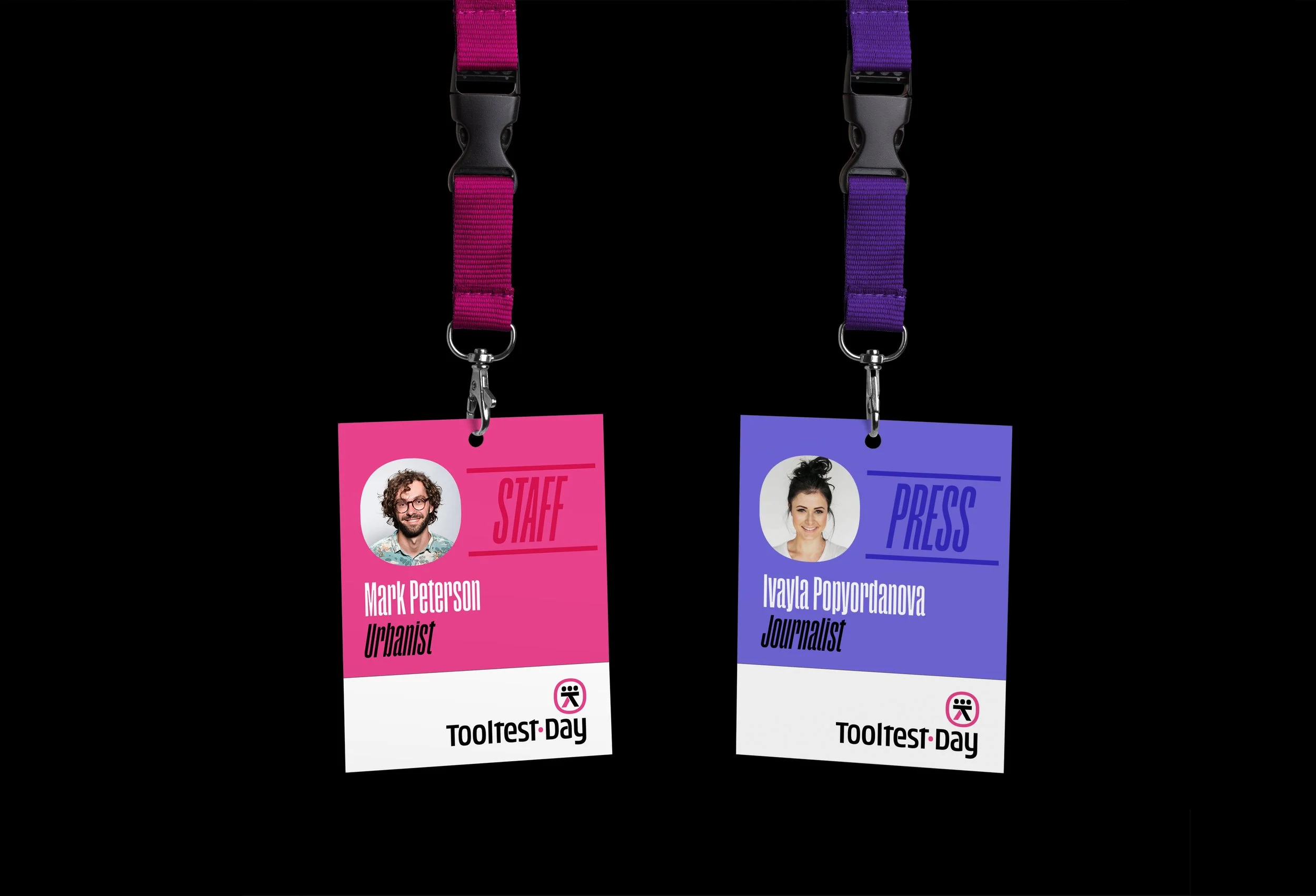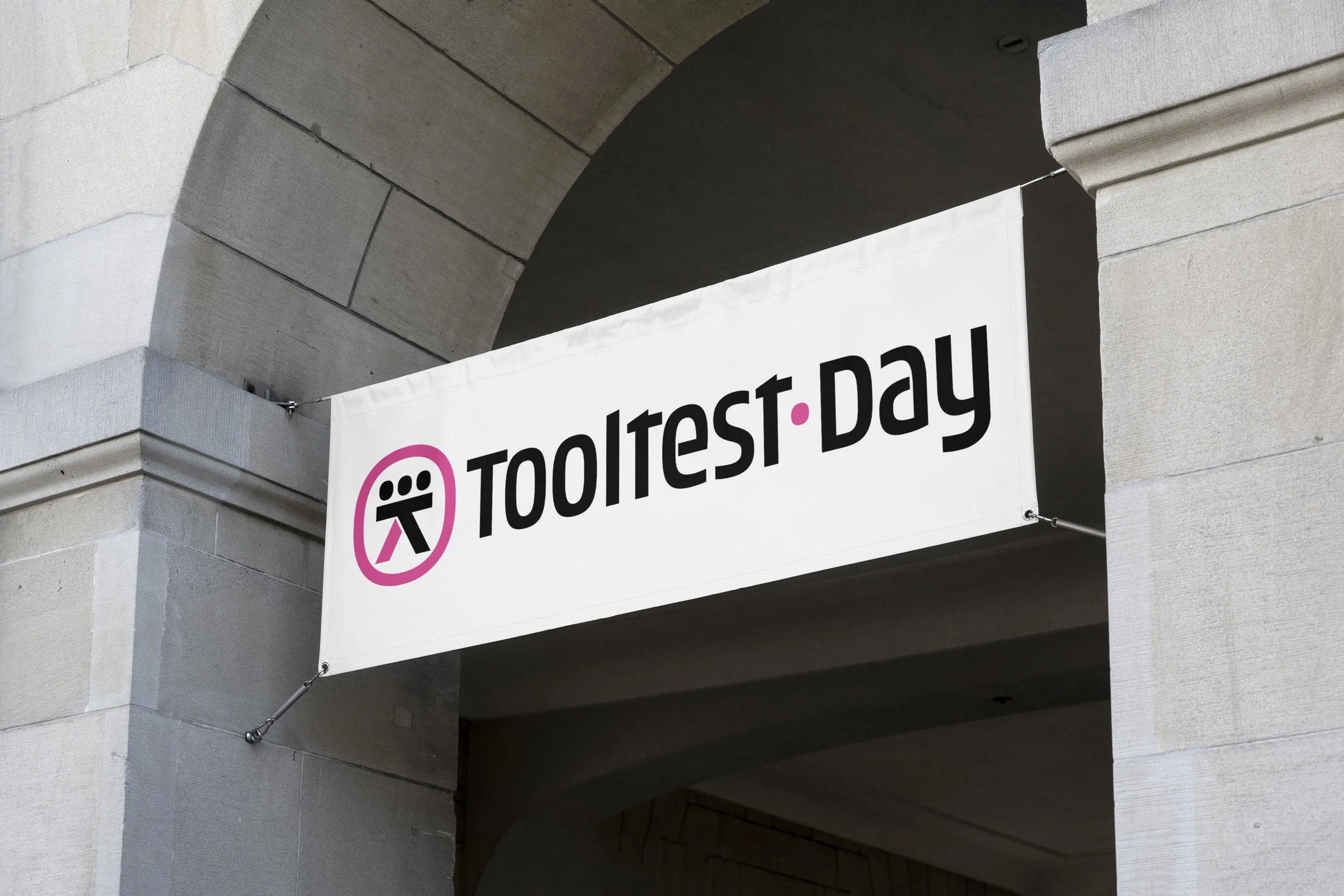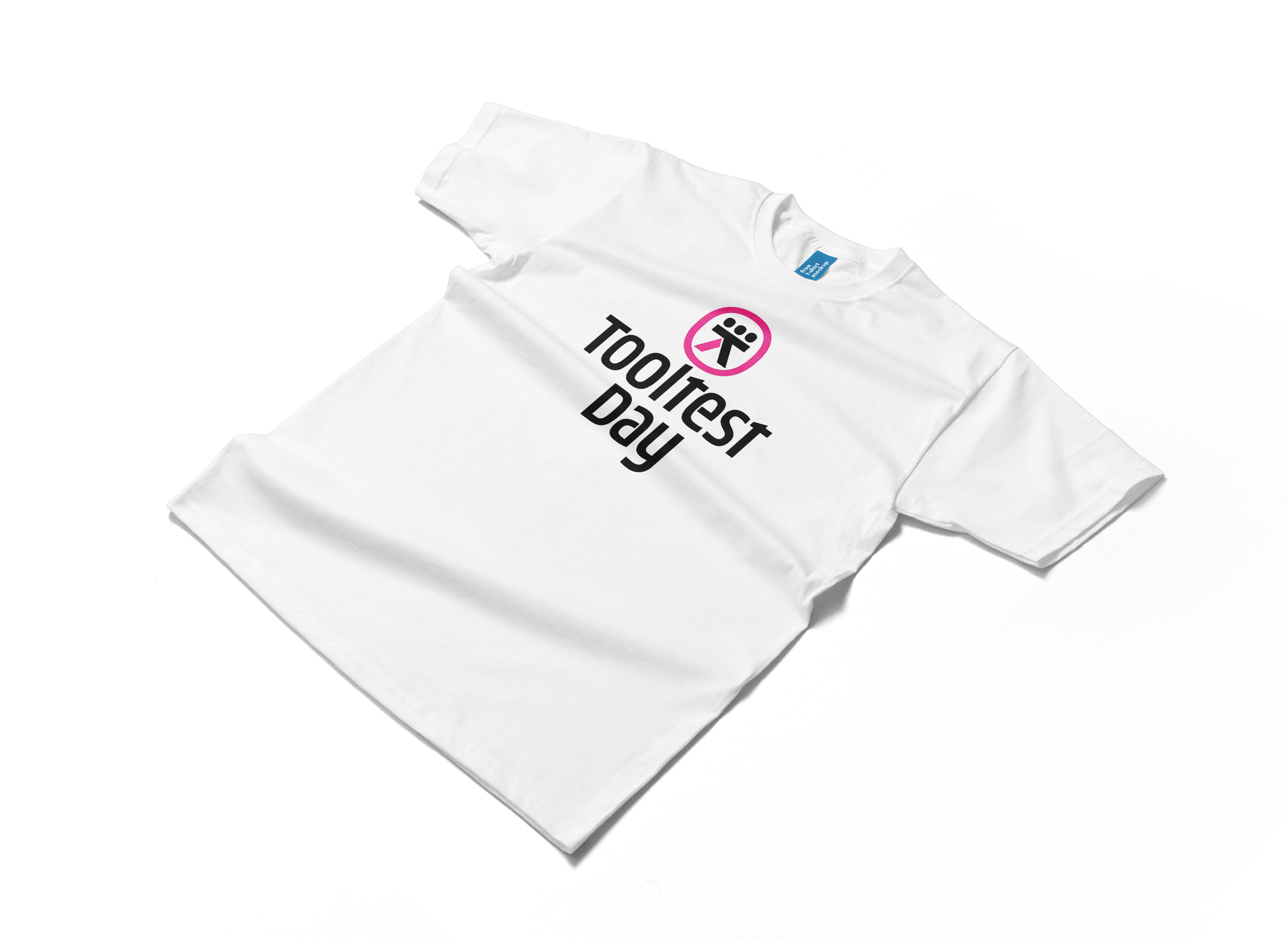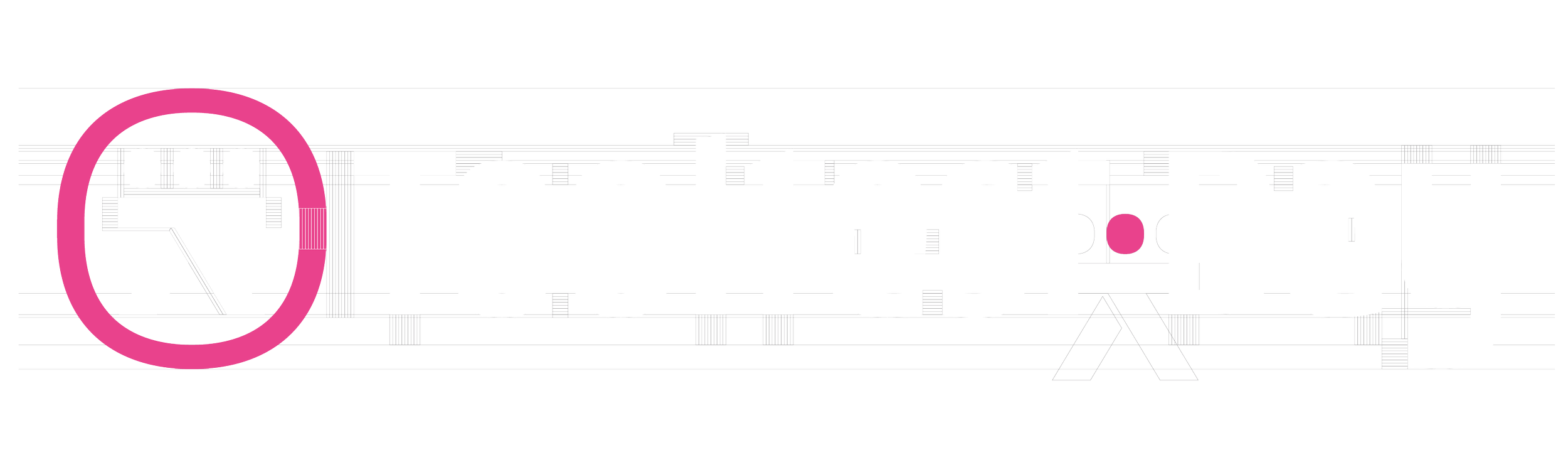
Collaborative urbanism
Project: Logo, lettering & pictograms
Tooltest Day is a platform dedicated to collaborative development of the Placemaking Europe network’s Toolbox. Its core is about rapid prototyping of simple placemaking solutions within the framework of tactical urbanism, short-timed, pressure cooker actions on the ground followed (or initiated) by webinars. The aim is to test the tools on the ground in different contexts and collect the data and feedback of everyone participating.
We were commissioned to create a logo design consisting of 2 parts – a mark and custom lettering to go with it. As well as a set of pictograms.
The emblem is based on several separate ideas:
• A human with 3 heads symbolises a group of people who think/work/act together, or in other words – collaboration;
• Ellipsis (...) – as a symbol for to be continued, namely – results/development/further work/ideas;
• A workbench/solid table on which people can (symbolically or physically) meet, share thoughts and ideas, sketch, doodle, discuss and make decisions;
• Аn encircling shape around the symbol tо further emphasize the sense of community/team/togetherness.
The overall aesthetic of the letterforms is a subtle mix of “technical” and “humanistic”, exactly what the mark’s idea and construction were intended to convey.